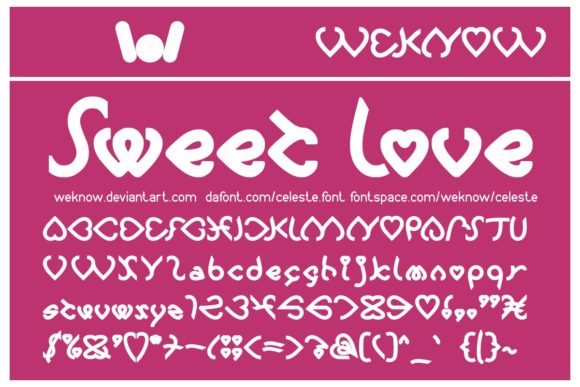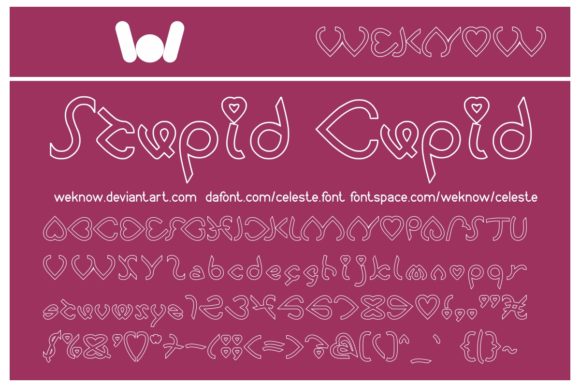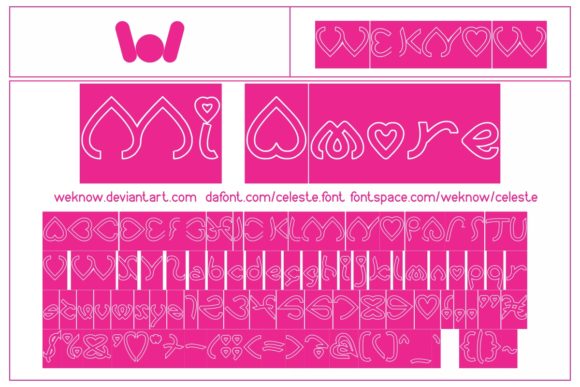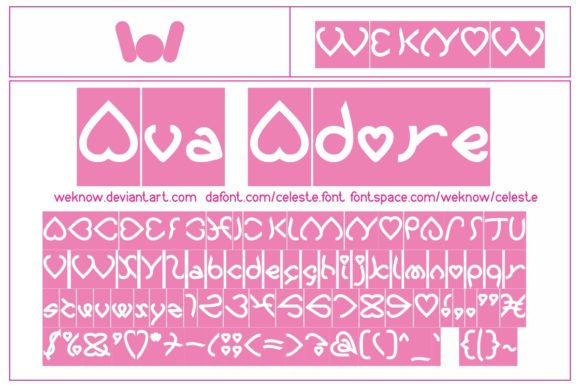
Discover the Eclectic Beauty of Celeste Font: A Playfully Conceptual Display Typeface
In the world of typography, fonts play a crucial role in conveying messages, expressing creativity, and capturing the essence of a brand. Among the numerous typefaces available, Celeste Font stands out for its unique, eclectic beauty and versatility. Designed to celebrate abstract shapes in all their playfulness, Celeste is a display typeface that promises to elevate your designs to new heights.
The Essence of Celeste Font
At its core, Celeste Font is a celebration of abstract shapes and their ability to evoke emotions, convey personality, and add depth to any design. This playfully conceptual display typeface is characterized by its eclectic, artistic approach to typography, making it an ideal choice for designers looking to infuse their projects with a touch of creativity and whimsy.
Key Features of Celeste Font
- Unique Abstract Shapes: Celeste Font boasts a collection of abstract shapes that are both visually striking and thought-provoking. These shapes can be used to create stunning visual narratives, adding an extra layer of meaning to your designs.
- Eclectic Beauty: The font’s eclectic nature makes it incredibly versatile, allowing it to seamlessly integrate into a wide range of design contexts, from modern digital platforms to traditional print materials.
- Playfully Conceptual: Celeste’s playful approach to typography makes it perfect for projects that require a touch of whimsy and creativity. Whether you’re designing a logo, a poster, or a website, Celeste Font is sure to bring a smile to your audience’s faces.
- Display Typeface: As a display typeface, Celeste Font is optimized for use in headlines, titles, and other prominent design elements. Its bold, eye-catching appearance ensures that your message will be seen and remembered.
Contexts Where Celeste Font Truly Shines
One of the standout features of Celeste Font is its adaptability. This typeface can be used in a variety of contexts, including:
- Branding and Logo Design: Celeste’s unique shapes and playful aesthetic make it an excellent choice for brands looking to establish a distinctive visual identity.
- Posters and Flyers: The font’s bold, attention-grabbing appearance makes it perfect for posters and flyers that need to stand out in a crowded environment.
- Digital Platforms: From website headers to social media graphics, Celeste Font can add a touch of creativity and sophistication to your online presence.
- Packaging Design: For products that want to stand out on store shelves, Celeste Font offers a fresh, modern approach to packaging design.
Tips for Using Celeste Font Effectively
To get the most out of Celeste Font, consider the following tips:
- Experiment with Color: Celeste’s abstract shapes look stunning in bold, vibrant colors. Don’t be afraid to experiment with different color schemes to find the perfect match for your design.
- Mix and Match: Combine Celeste Font with other typefaces to create visually interesting contrasts and add depth to your designs.
- Play with Scale: Celeste’s unique shapes are just as effective at large sizes as they are at smaller ones. Play with scale to create dynamic, engaging compositions.
Celeste Font is more than just a typeface – it’s a design statement. With its eclectic beauty, abstract shapes, and playful aesthetic, Celeste offers designers a unique opportunity to create truly outstanding designs. Whether you’re working on a branding project, a poster, or a digital platform, Celeste Font is sure to bring a touch of creativity and whimsy to your work. So why settle for ordinary when you can celebrate the abstract and make a statement with Celeste Font?